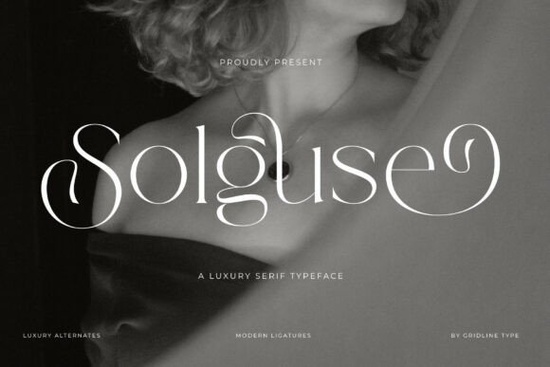
If you're searching for a serif typeface that feels both timeless and editorial, the Solguse Font deserves a closer look. It's a luxury display serif built for high-end branding, wedding stationery, and editorial design with dramatic swashes and fluid curves that set it apart from standard serif options. This typeface blends classical Roman elegance with a more modern, expressive flow.
What makes Solguse different from other luxury serif fonts?
Most serif typefaces lean either classical or modern. Solguse blends both worlds. It draws on Roman serif traditions but adds looping terminal swashes, interlocking crossbars, and stylized fluid tails that soften rigid letterforms into something more expressive. The result is a font that looks architectural yet organic at the same time.
It also ships with modern ligatures and luxury alternates, so you can swap letterforms to match the mood of your layout. That kind of flexibility matters when you're working across different projects from minimalist grids to ornate invitation suites. You can read more about how serif typefaces evolved to understand why these design details carry so much visual weight.
Who is this font best suited for?
Solguse works well for a specific range of design projects. Here's where it really shines:
- Fashion branding logos, lookbooks, and runway graphics for haute couture labels
- Wedding stationery invitations, save-the-dates, and envelope addressing
- Cosmetics and perfume packaging labels, box designs, and product inserts
- Fine jewelry identity business cards, tags, and boutique signage
- Magazine layouts editorial headers, feature titles, and pull quotes
If you create designs for clients in any of these spaces, Solguse gives you a typeface that already carries a premium feel no extra styling needed.
How does it pair with other fonts?
A good rule of thumb: use Solguse for your headlines and logos only, then pair it with a simpler typeface for paragraphs, captions, and smaller text.
What design styles does Solguse work best with?
This font performs especially well over grainy black-and-white photography, romantic editorial shoots, and clean minimalist layouts. The high contrast between thick and thin strokes keeps it legible at large sizes, which is exactly what you want in a display typeface.
It's less suited for body copy or small-screen text. Think of it as a headline and logo font something you place at the top of a page or the center of a brand mark, not running through a paragraph. For print-on-demand sellers, this means it works beautifully on poster designs, tote bags with bold typography, and greeting card covers.
What should I check before using it in a design?
- Choose your use case headline, logo, invitation, or packaging
- Explore the alternate characters try the ligatures and swash options to find the right mood
- Pick a clean sans or serif companion for any supporting body text
- Test over your actual imagery Solguse reads best on high-contrast backgrounds
- Keep it large this is a display font, so avoid using it below 24pt
- Check your export settings make sure ligatures and alternates render correctly in your software